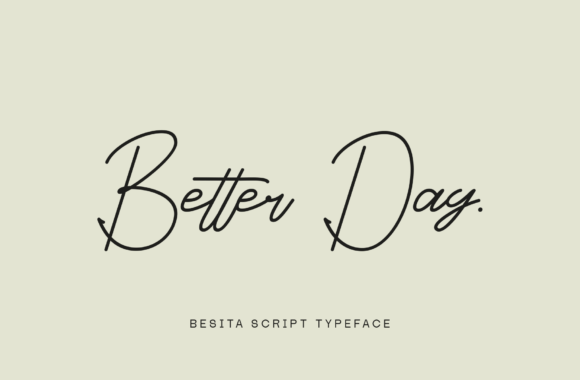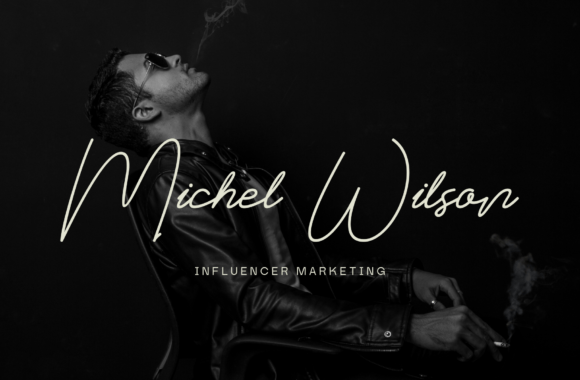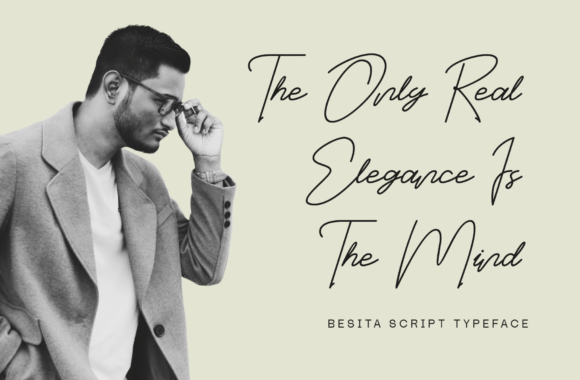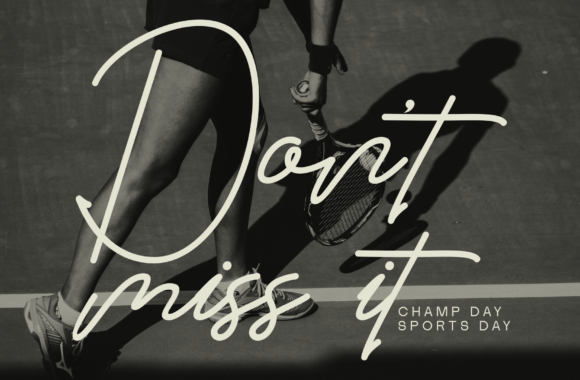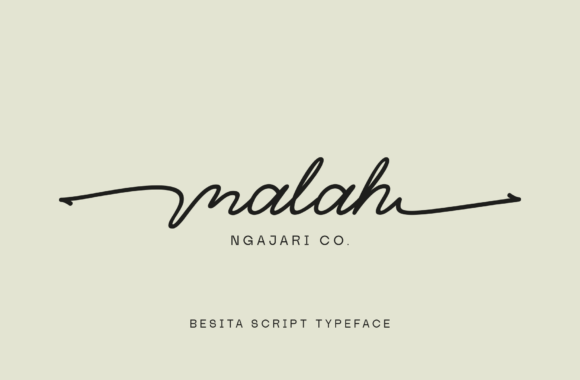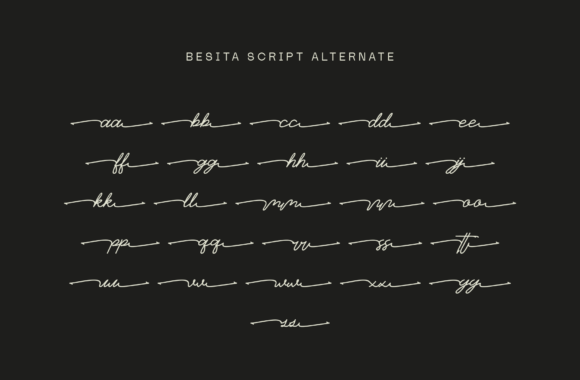
Have you ever stared at a blank page, trying to find the perfect font to match your vision? The blank page stares back, taunting you with its emptiness, until suddenly, a spark of inspiration strikes. You envision a flowing, handwritten script that exudes elegance and sophistication. This is where the Besita Font comes in – a signature script font that embodies the perfect blend of refinement and minimalism.
Designed to provide a polished and professional look, the Besita Font is ideal for projects that require a personal touch, such as signatures, brand identities, and logos. Its versatility makes it a valuable asset for designers, allowing it to seamlessly integrate into various design contexts without overwhelming the composition. Whether you’re working on a personal branding project or a product packaging design, the Besita Font is sure to elevate your work to the next level.
- Unique Characteristics: The font features a unique blend of modern and traditional elements, with a distinctive flair and elegance, making it perfect for high-end branding and design projects.
Besita Font Review
I recently had the chance to work with Besita Font, and I have to say it’s a unique addition to my font library. Here’s what I think:
- Unique and stylish: Besita Font is perfect for designers looking to add a touch of whimsy to their projects.
- Great for branding: The font’s distinctive style makes it an excellent choice for creating memorable brand identities.
- Wide range of languages supported: Besita Font supports a wide range of languages, making it a great option for global projects.
- Limited font styles: Besita Font is only available in a single weight, which may limit its versatility.
- Not ideal for body text: The font’s unique style may not be suitable for large blocks of body text, as it can be tiring to read.
Besita Font is a great addition to any designer’s font library, especially for projects that require a unique and stylish touch. While it may have some limitations, its unique style and wide language support make it a valuable asset for designers looking to create memorable brand identities and stylish graphics.
Tips for Getting the Most Out of Besita Font
Here are some tips to help you get the most out of Besita Font:
- Use Besita Font for titles and headings to add a touch of elegance.
- Pair Besita Font with other elegant fonts to create a sophisticated look.
Besita Font is perfect for: